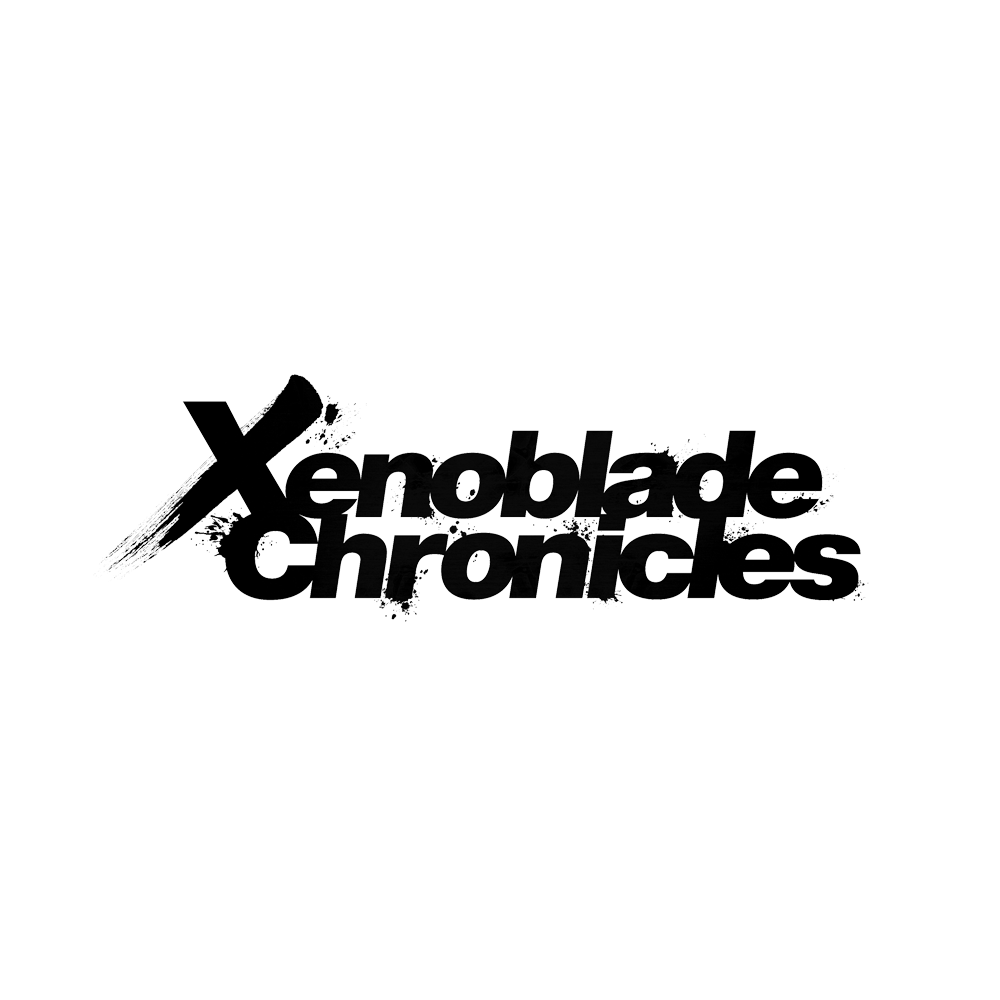
Xenoblade Chronicles Font
ActionXenoblade Chronicles is an action role-playing game developed by Monolith Soft and published by Nintendo for the Wii. Xenoblade Chronicles combines elements of fantasy and science fiction featuring a real-time action battle system. Players control a character named Shulk, who is on a quest to defeat the Mechon, a race of robotic creatures that have invaded his world.
The Xenoblade Chronicles title uses Helvetica Neue Black Italic. Helvetica is a neo-grotesque sans-serif typeface developed in 1957 by Max Miedinger and Eduard Hoffmann.